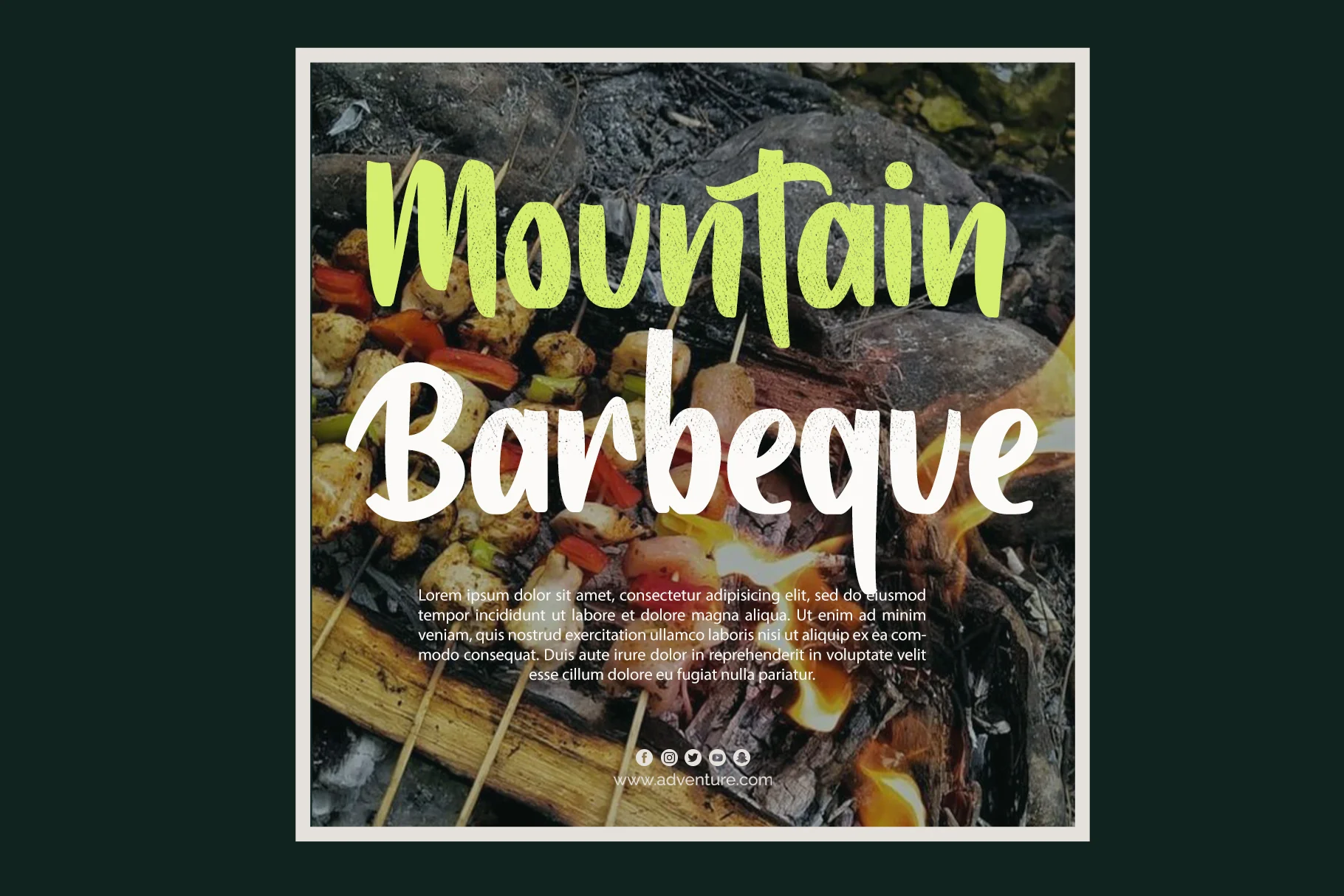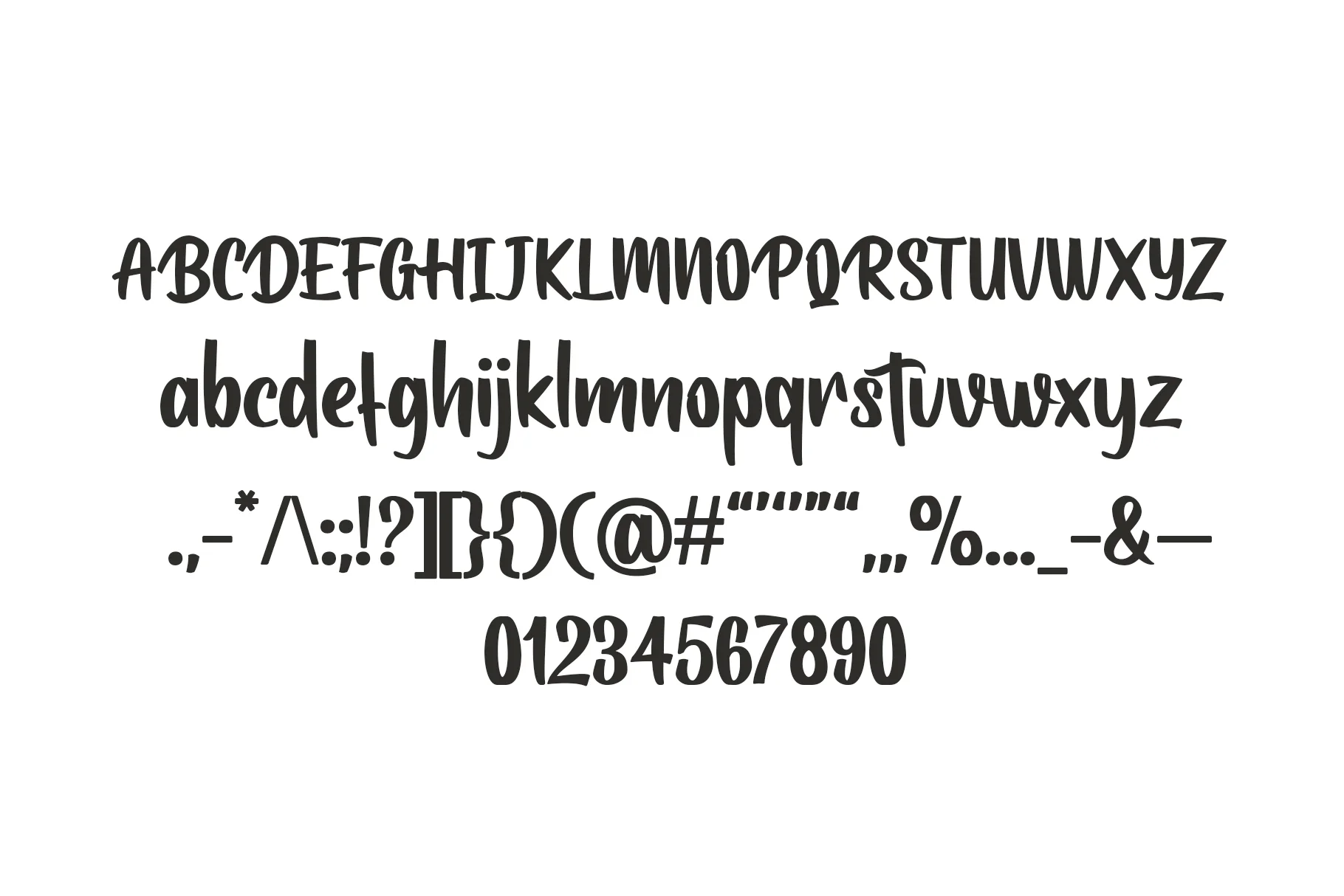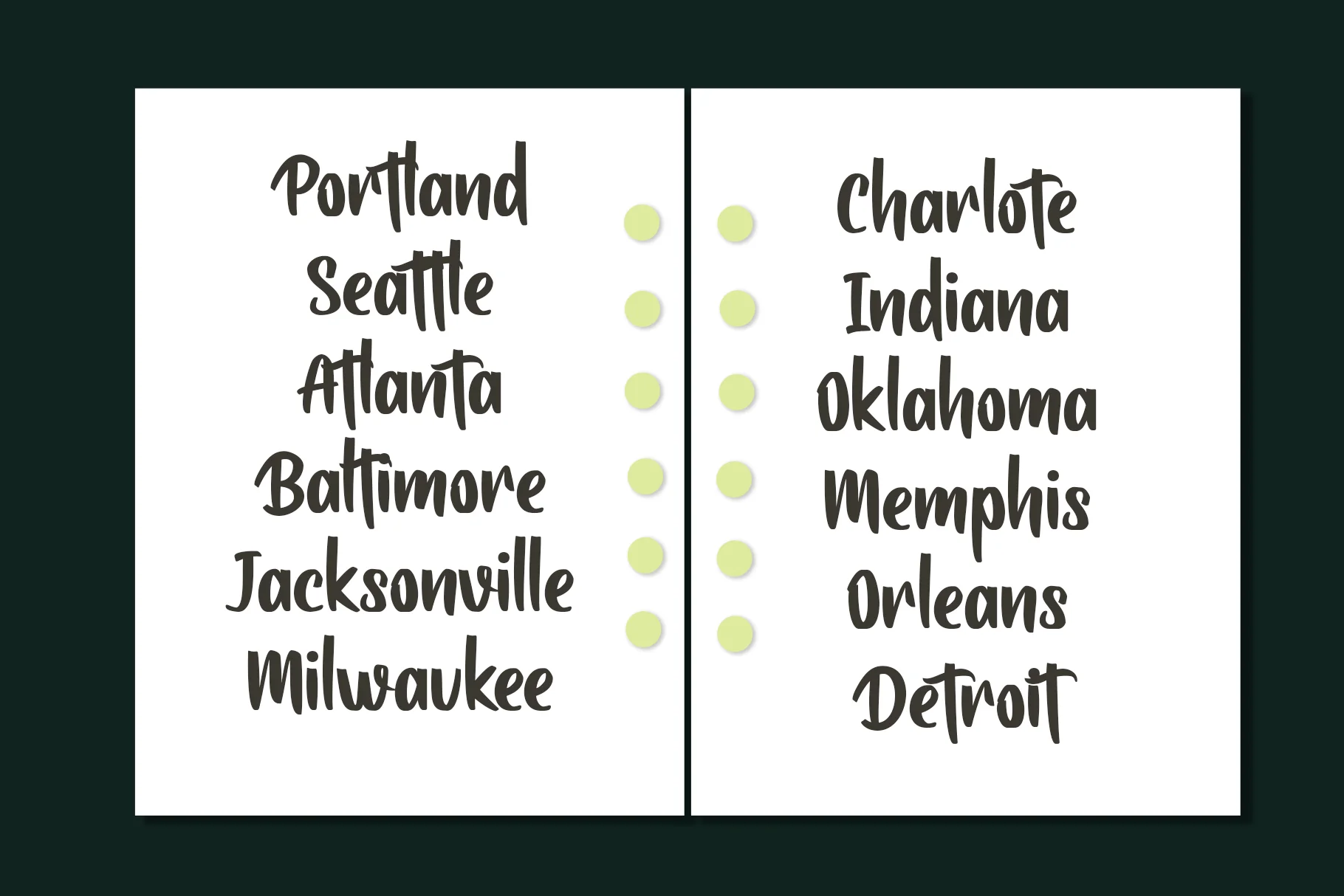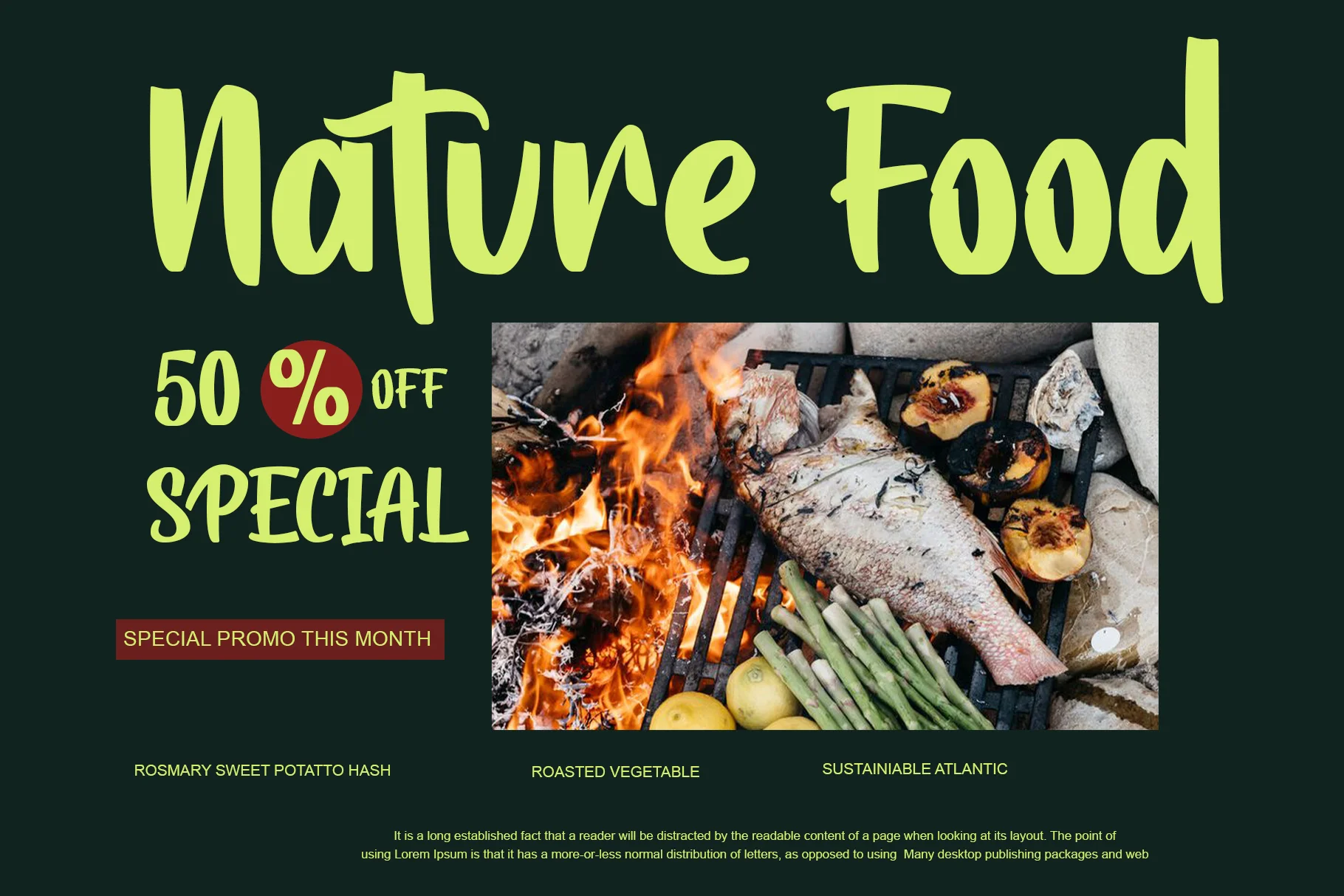
Nature hiking
This font has a bold, strong, and casual appearance. Its strokes resemble rough brushwork or quick, enthusiastic handwriting, giving it a strong sense of adventure, the outdoors, and energy. The letterforms are intentionally non-uniform and possess a deliberate, slightly "messy" or rugged texture.